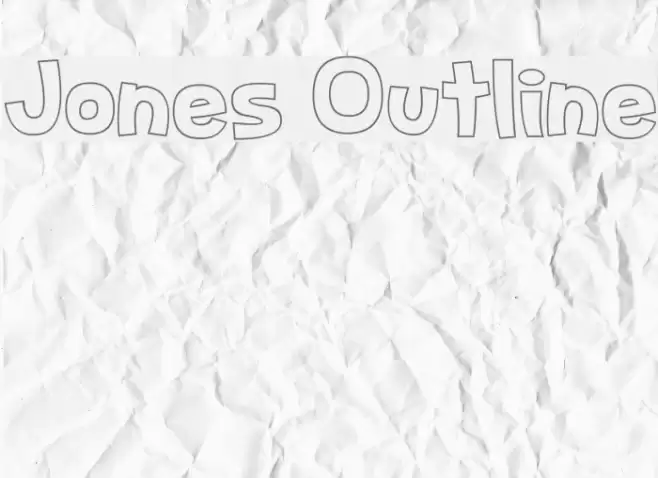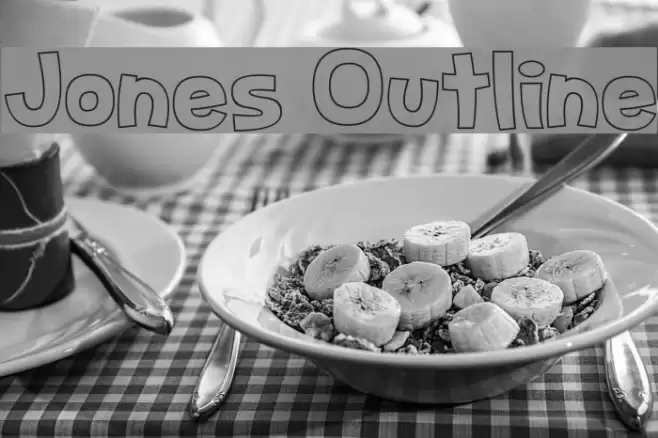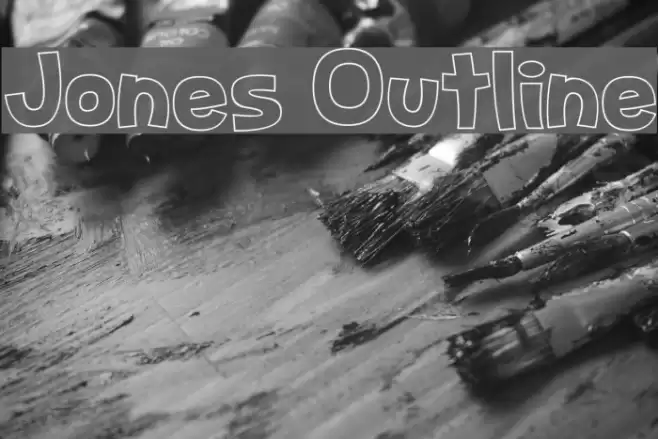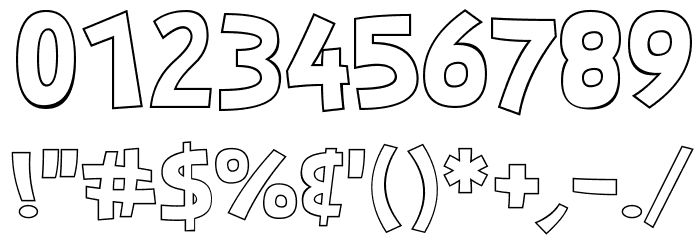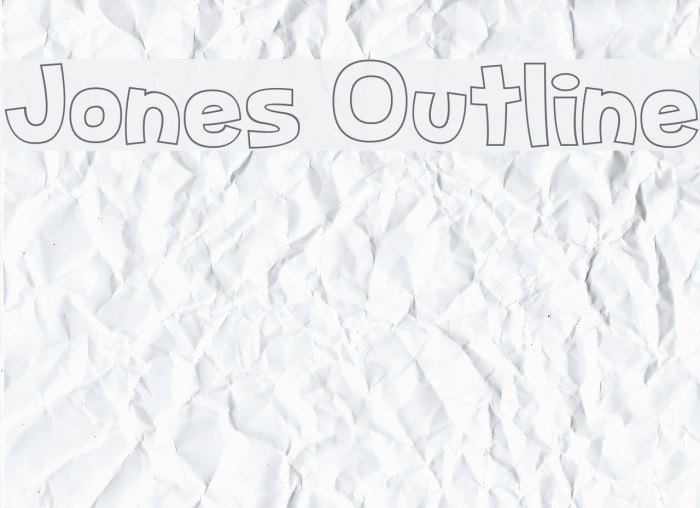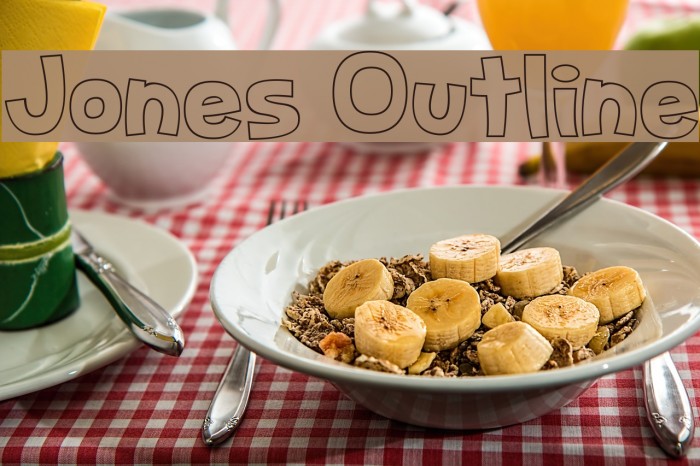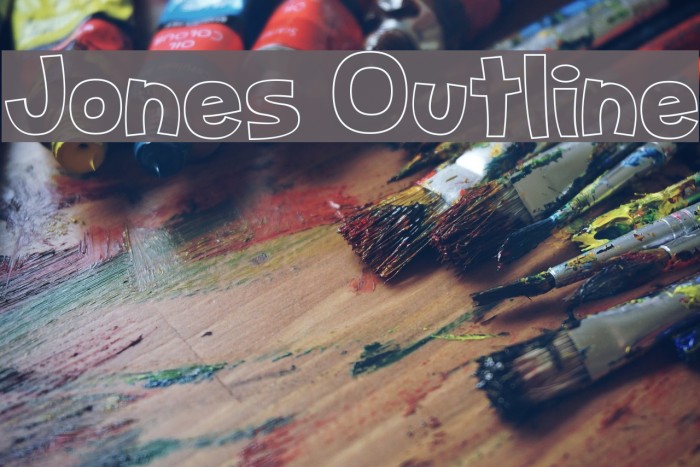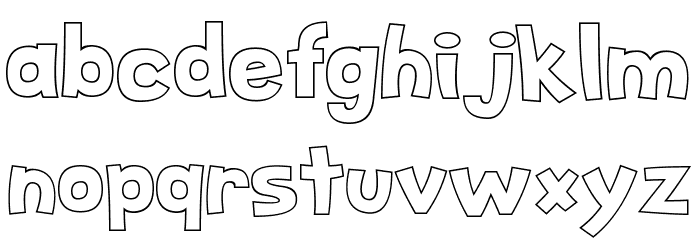
Jones Outline Font
Jones Outline Description
This font features a playful and bold outline style, characterized by its thick, uniform strokes that create a hollow effect. The letters are slightly rounded, giving them a friendly and approachable appearance. The uppercase and lowercase characters maintain a consistent style, with a slight variation in the height and width that adds to the whimsical nature of the font. The numerals and special characters follow the same design principles, ensuring a cohesive look across all elements. The font's outline design makes it ideal for creating eye-catching headlines and titles, where the focus is on the shape and form of the letters rather than the fill. Its unique style is perfect for projects that require a fun and informal touch.
A playful, bold outline font with rounded, uniform strokes from Uncategorized fonts.
- Proposed Projects: Ideal for children's books, comic strips, playful branding, and creative posters.
- Overall Style: Playful, Fun, Whimsical
- Use Case: Headlines, Titles, Posters